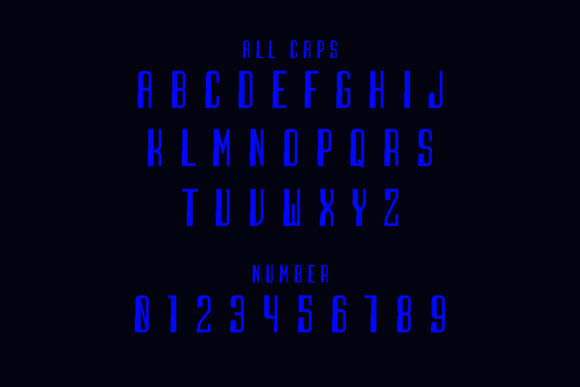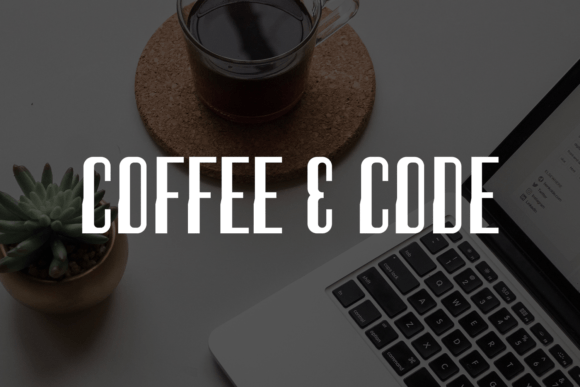
Introduction to Futler Strech Font
Futler Strech is a cool and modern display font.
Key Features of Futler Strech Font
Why Choose Futler Strech Font?
Futler Strech Font offers exceptional quality and versatility, making it a valuable addition to your design toolkit. Whether you’re creating for personal projects or commercial use, Futler Strech Font delivers professional results.